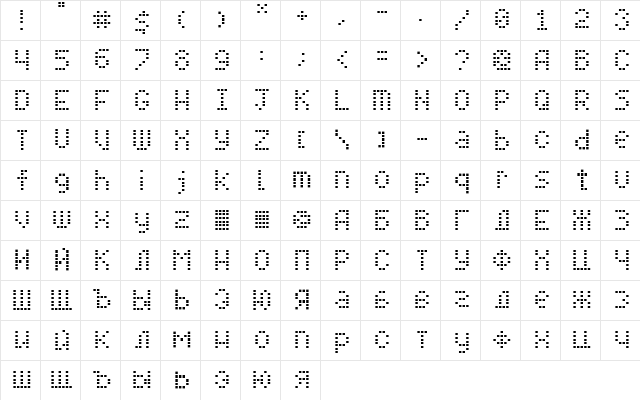
Pixel Cyrillic Normal
Design Context for Pixel Cyrillic Typeface
Pixel Cyrillic is rooted in pixel-grid construction, making it a natural fit for game UI, retro computing aesthetics, and digital nostalgia projects.
A natural choice for retro game titles, chiptune music branding, 8-bit UI, and digital nostalgia projects.
Pro Tip: Pair Pixel Cyrillic with flat colour palettes and simple geometric UI elements to reinforce its digital aesthetic.